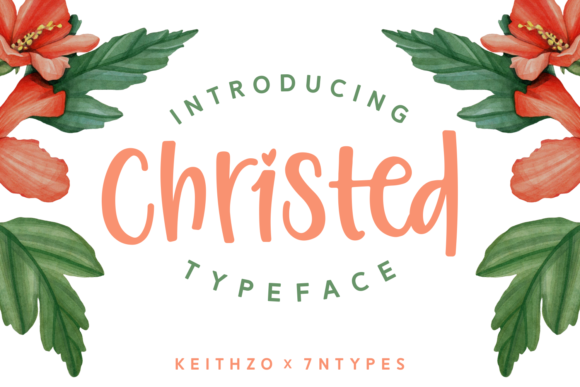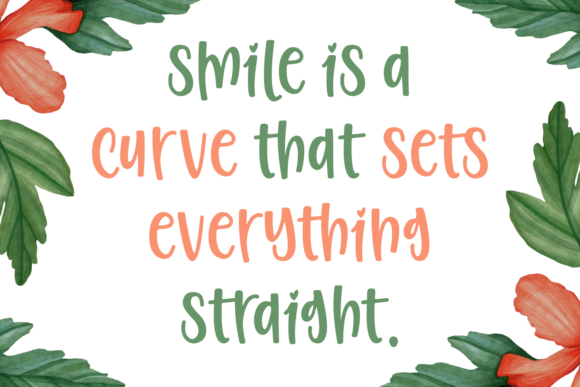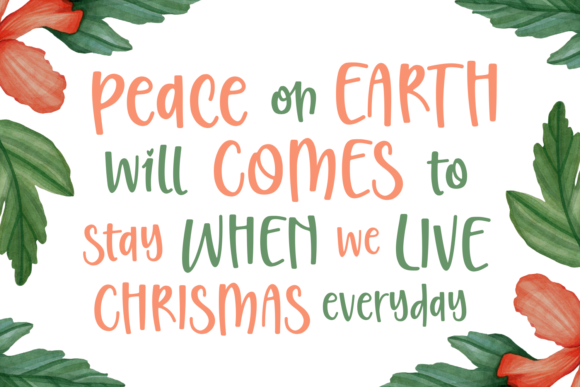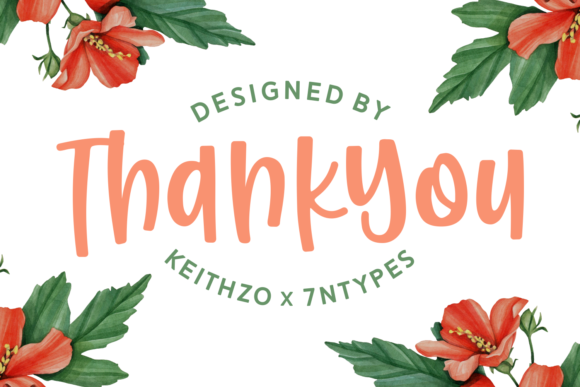
Christed Font
About Christed Font
The Christed is a modern script font. Its bold letters have a great readability and a playful touch. Perfect for adding a fun, modern look to your designs!